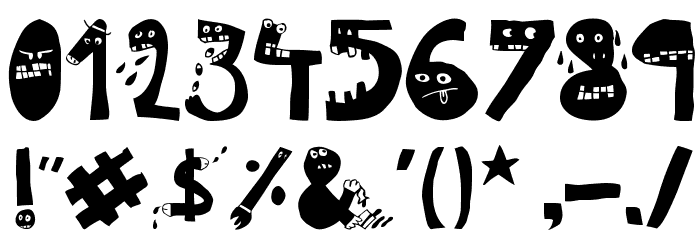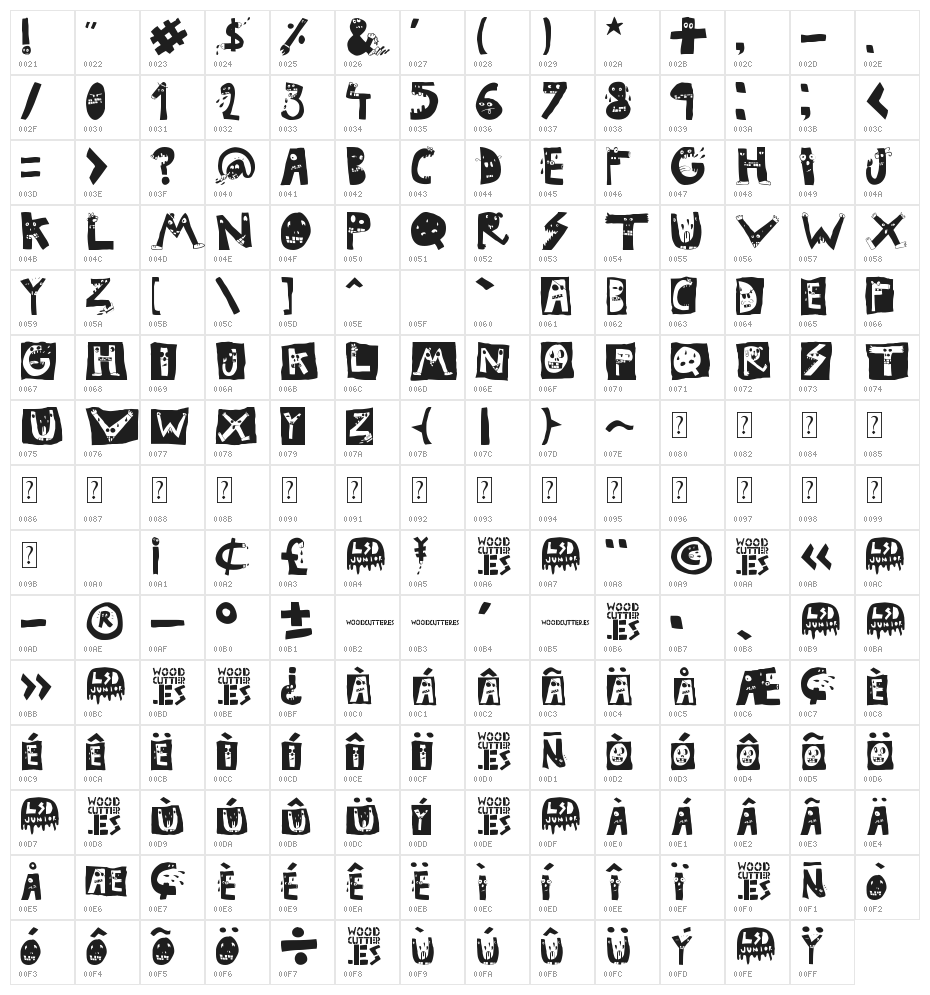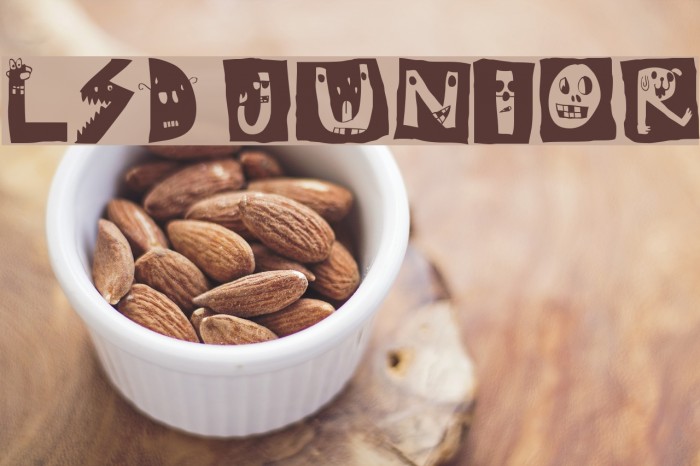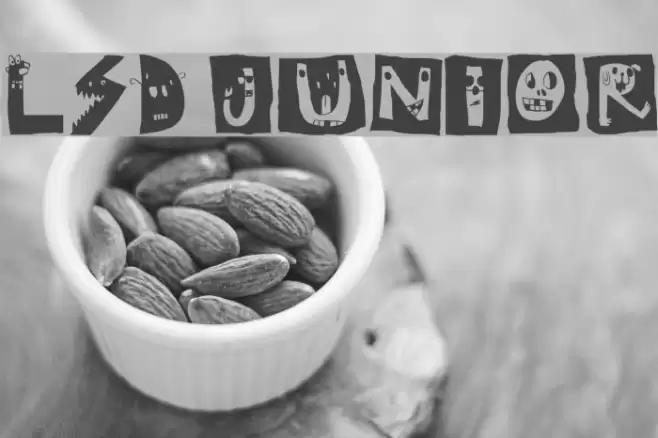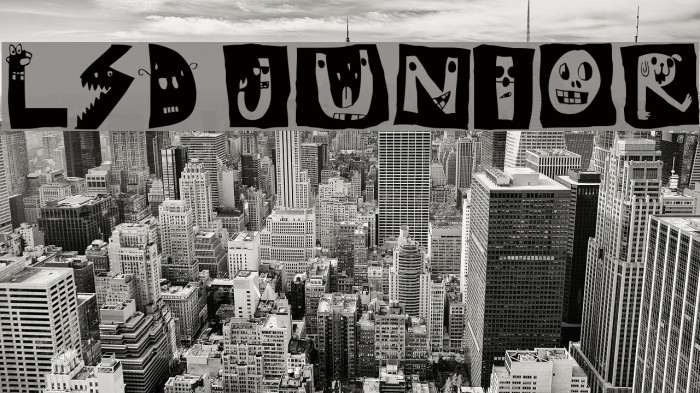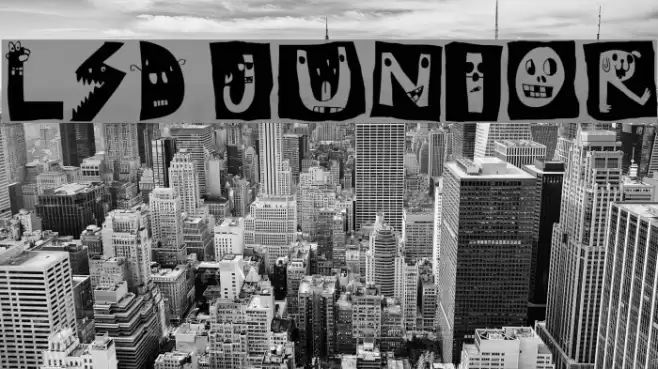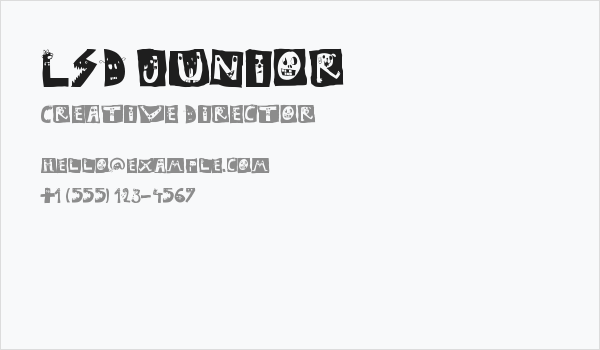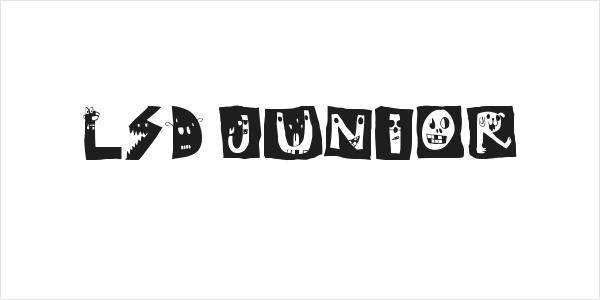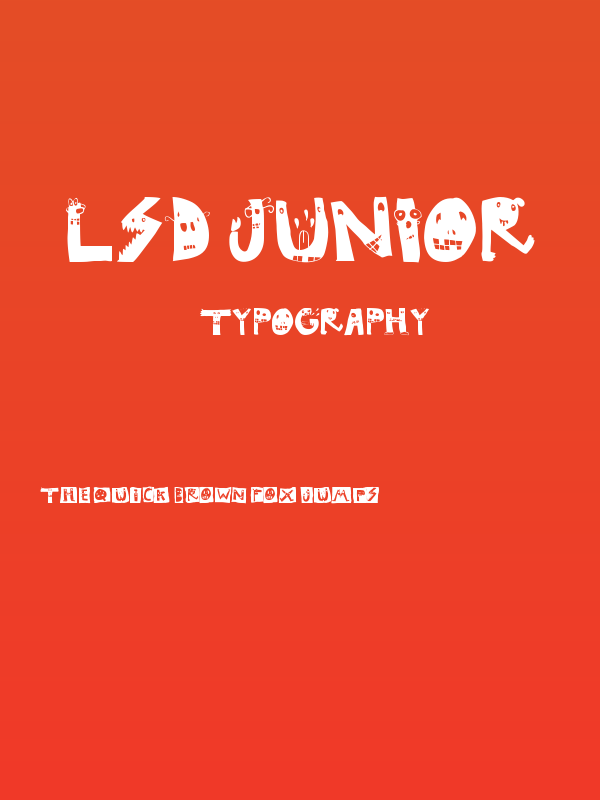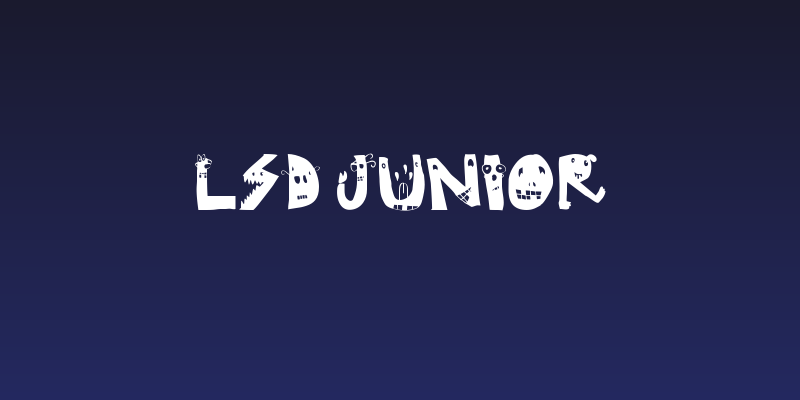
LSD junior Font
LSD junior Description
This playful and quirky font features characters with unique, cartoon-like faces and expressions embedded within each letter and number. The design is bold and eye-catching, with a mix of thick and thin strokes that create a dynamic visual appeal. Each character is distinct, with some incorporating whimsical elements like eyes, mouths, and other facial features, adding a humorous and lively touch. The font is highly decorative, making it ideal for projects that require a fun and engaging aesthetic. Its boldness ensures visibility, while the creative details make it memorable and distinctive.
| Proposed Projects | Ideal for children's books, comic strips, playful branding, party invitations, and any project needing a fun, whimsical touch. |